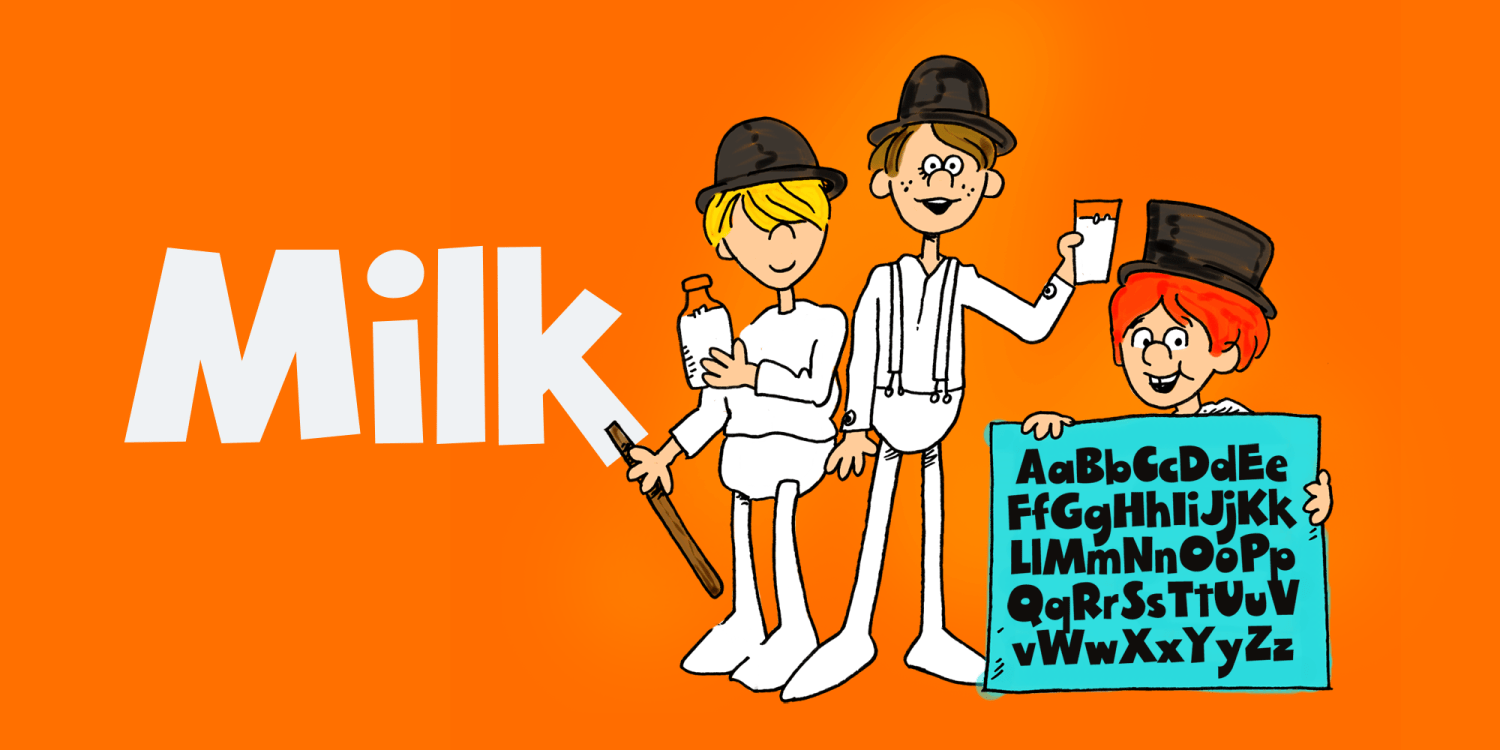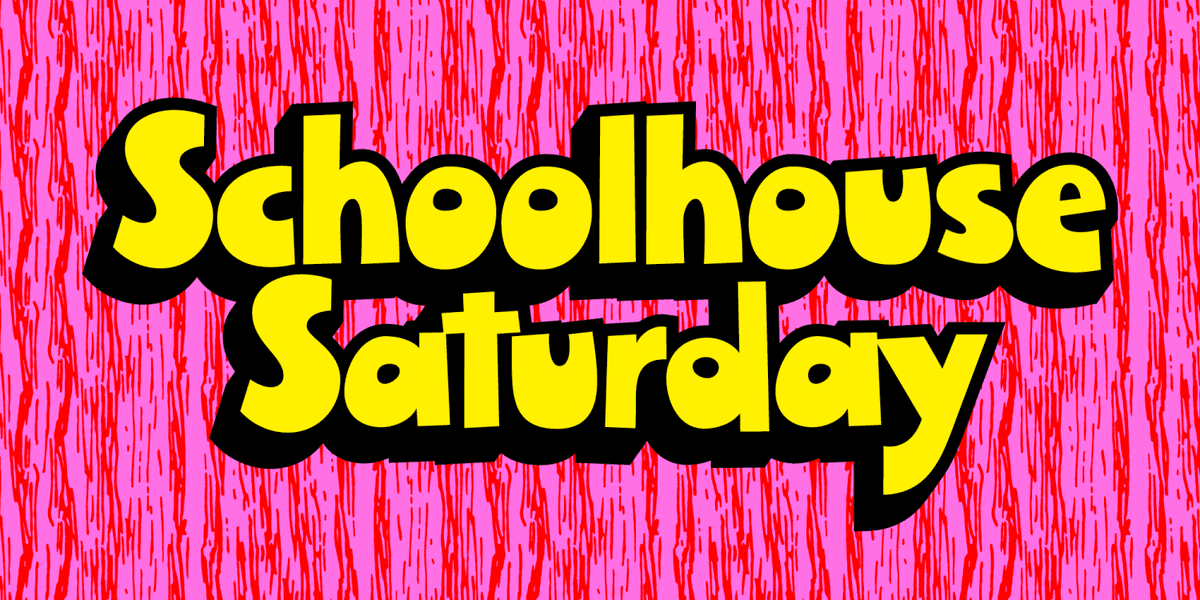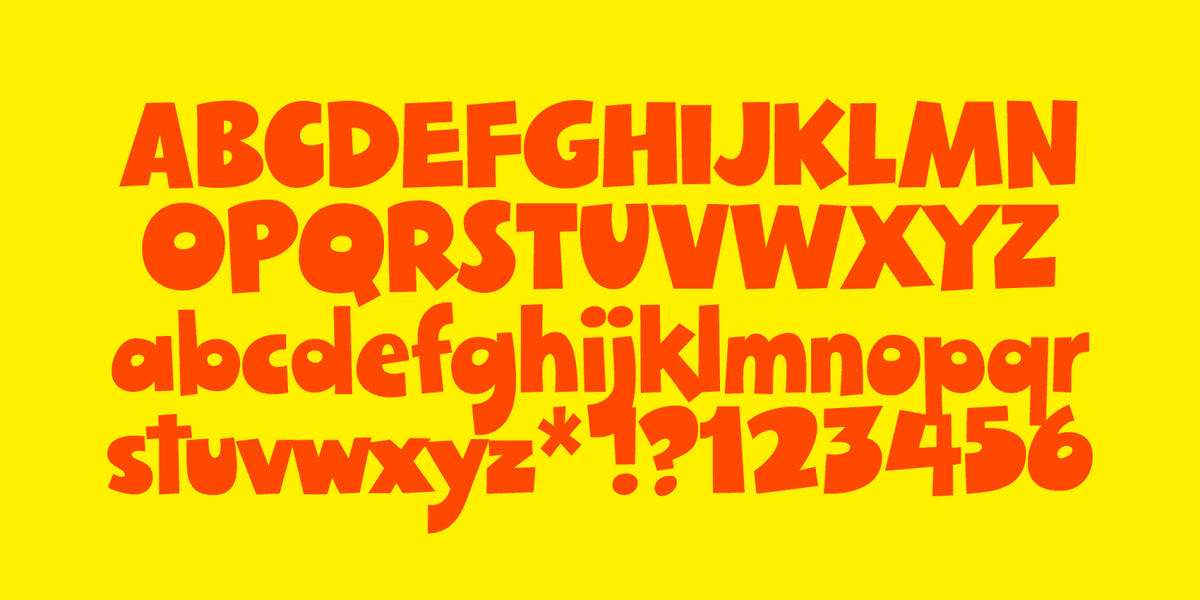
Schoolhouse Rock was one of my fondest memories of childhood, so you can imagine my excitement when I found out that they recently uncovered some fascinating relics in the Tom Yohe's old office at ABC Headquarters. Amongst the pages of discarded artwork and concepts was a rejected nutrition storyline encouraging kids to drink more milk, with the characters obviously biting the famous Korova Milk Bar scene in "A Clockwork Orange". The other great thing salvaged was this dynamite font, perfect for all those whimsical designs full of child wonder. Be the leader of your droogs and be the first to get this baby on your hard drive!